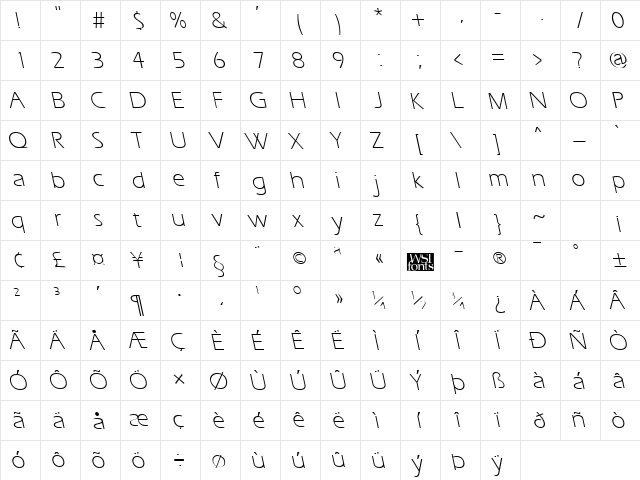
ErgoeLightBS Regular
Design Context for ErgoeLightBS Typeface
ErgoeLightBS offers clean, dependable letterforms without strong stylistic allegiance, making it a practical choice for designers who need flexibility. The delicate stroke weight brings airiness and refinement to layouts.